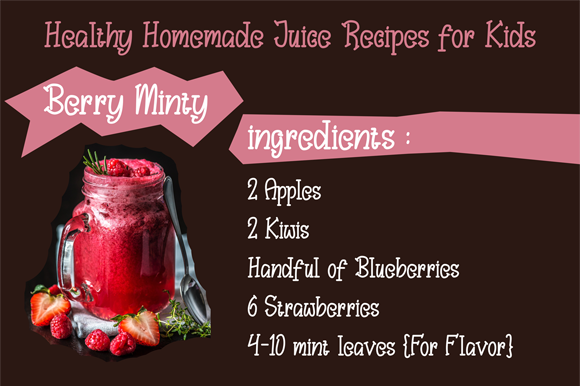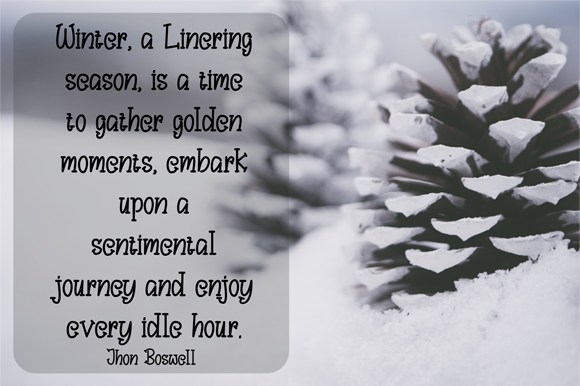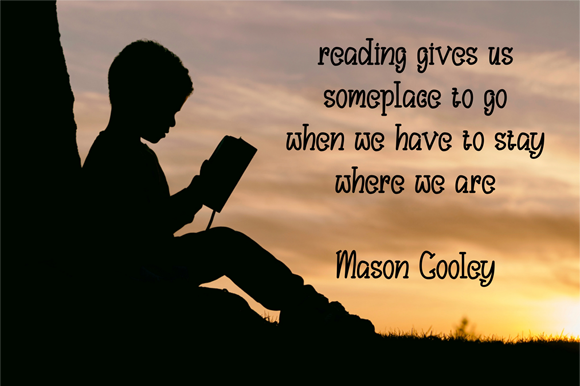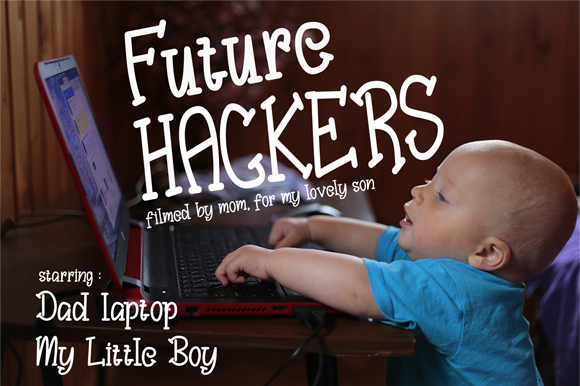
Introduction to Bungah Font
The Bungah is an unique script font.
It has a childish theme and will add a fun touch to your designs It’s perfect for logos, quotes, clothes, mugs, magazines and much more.
Key Features of Bungah Font